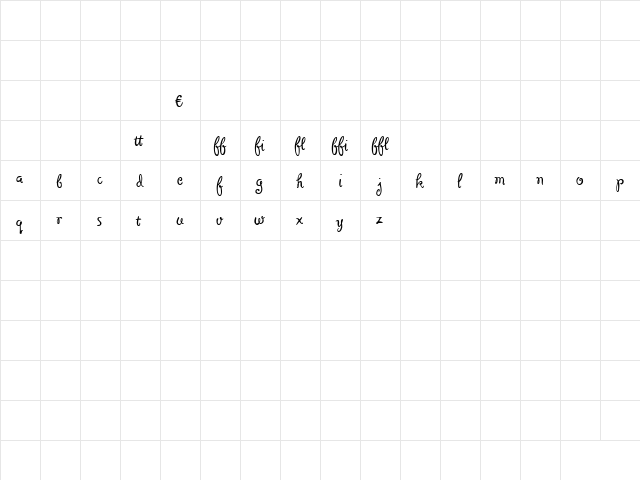
CafeMimiMVBALT Regular
Design Context for CafeMimiMVBALT Typeface
CafeMimiMVBALT is a composed and adaptable typeface that performs quietly and consistently across a wide range of design contexts.